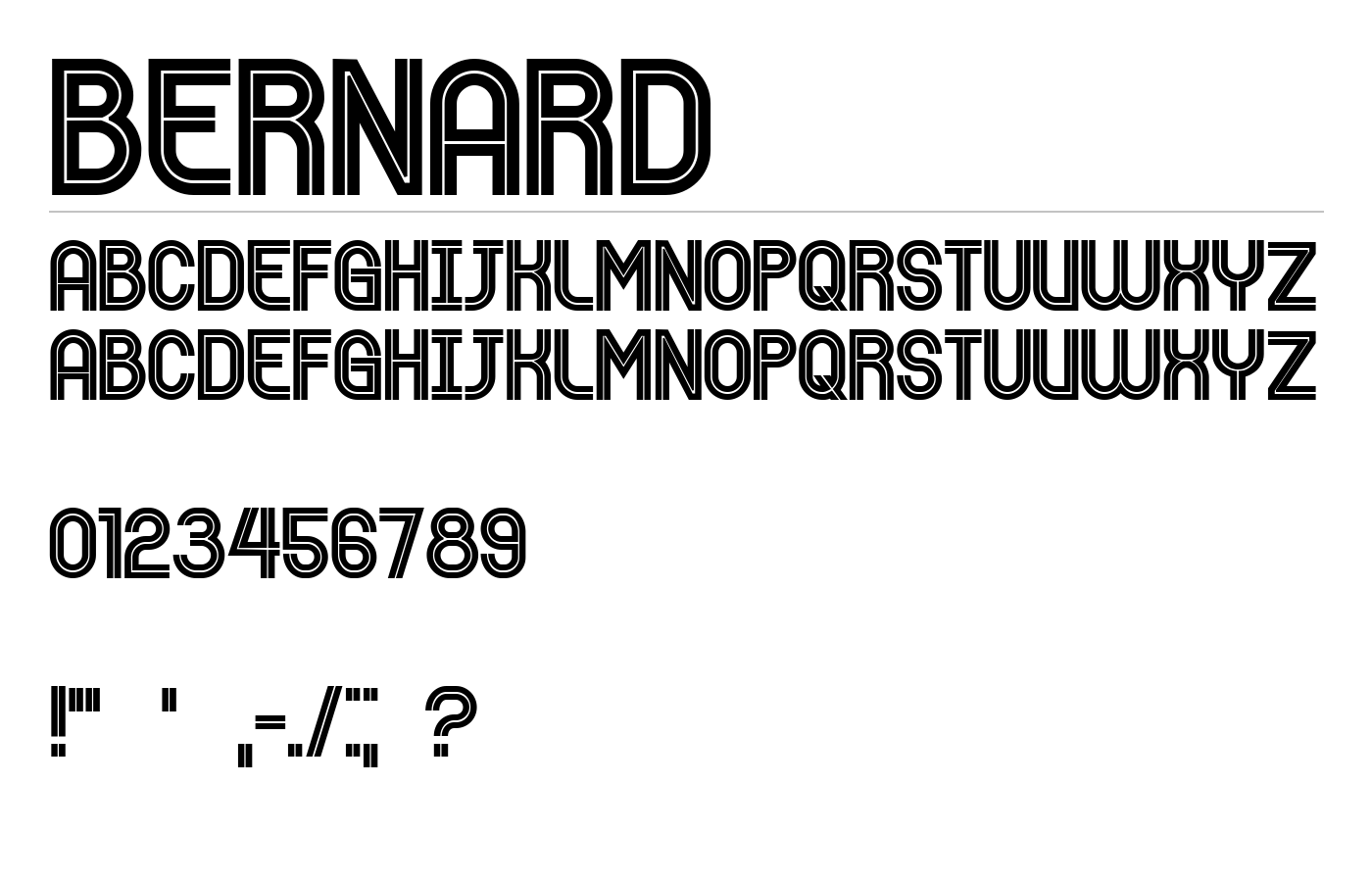
Bernard is a bold, geometric sans serif typeface with a distinct outlined style and a tall, condensed structure that gives it a modern yet retro feel. Its clean lines and unique double-line strokes make it ideal for eye-catching headlines, logos, and display use where a stylish, energetic personality is desired. This font works well for brands seeking a contemporary look with a touch of vintage flair, perfect for posters, packaging, and trendy editorial designs.
Bernard Font
About Bernard Font
| Font family | Bernard Font |